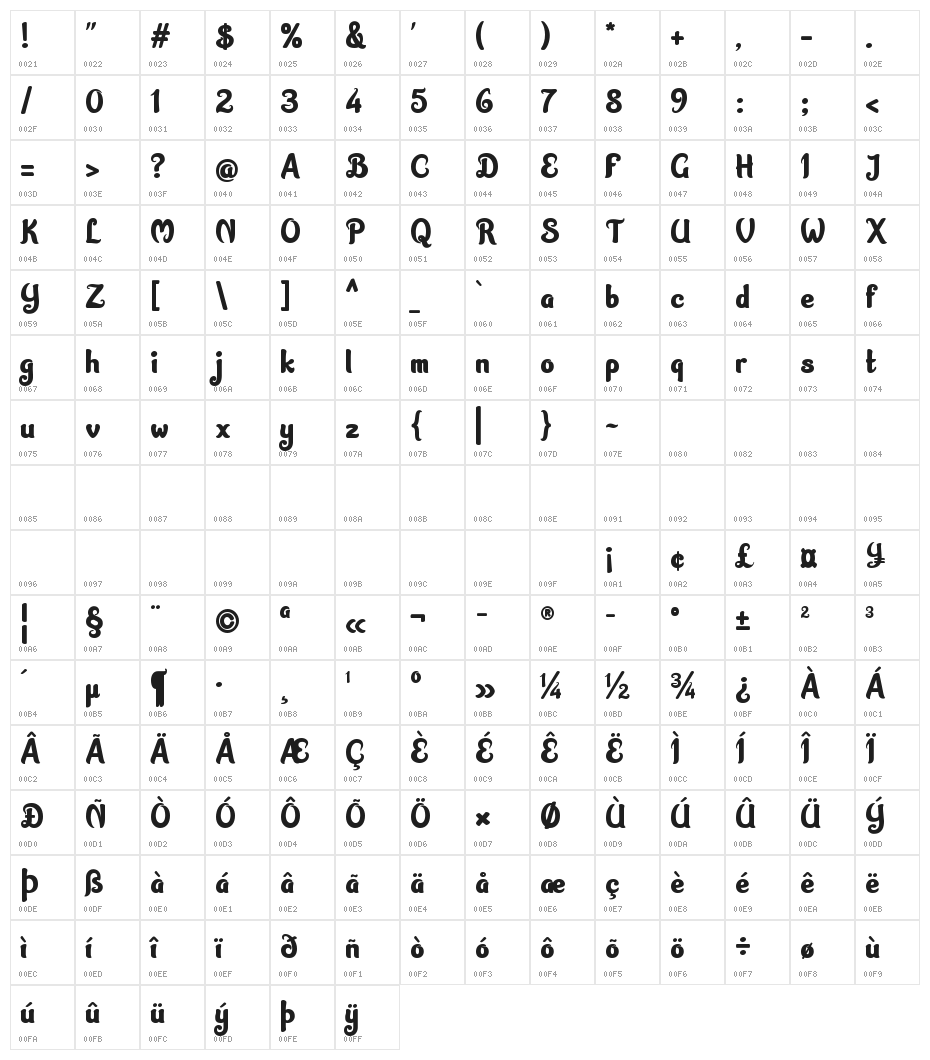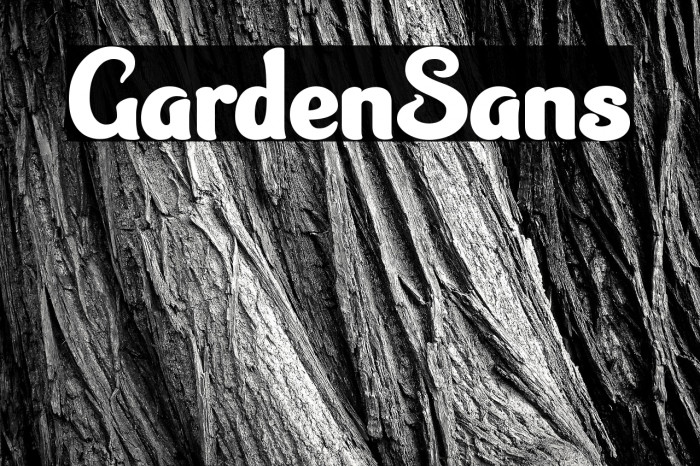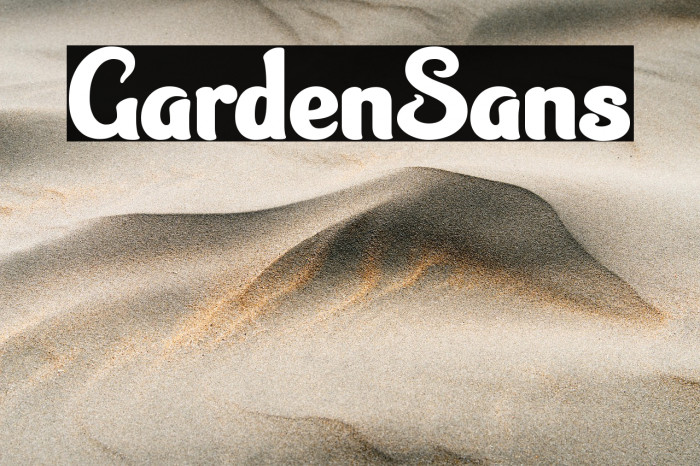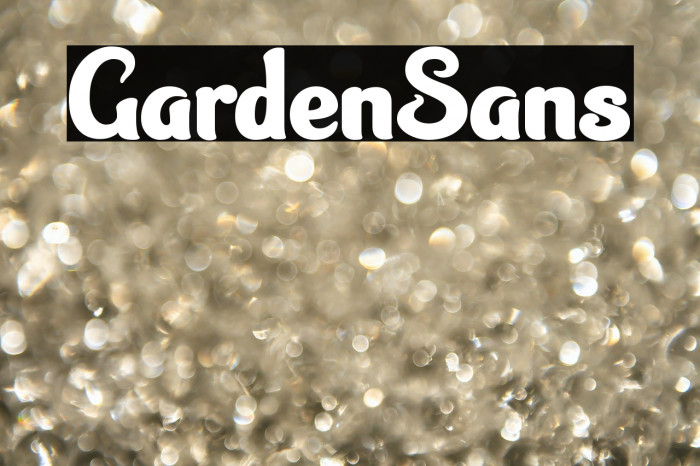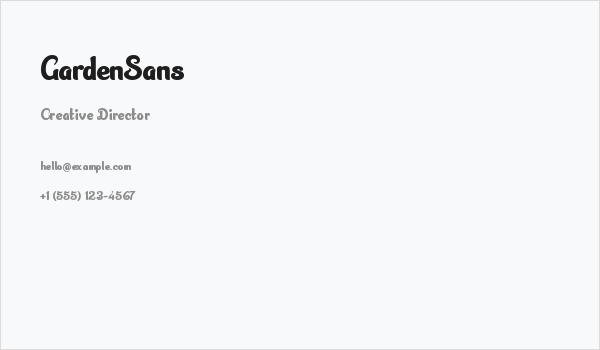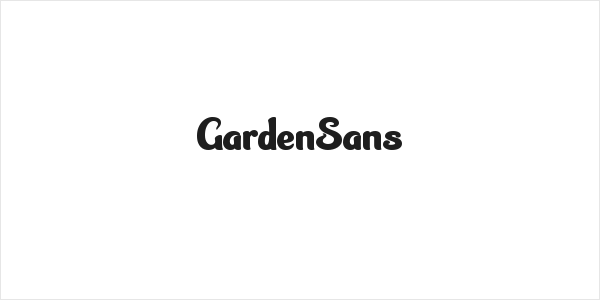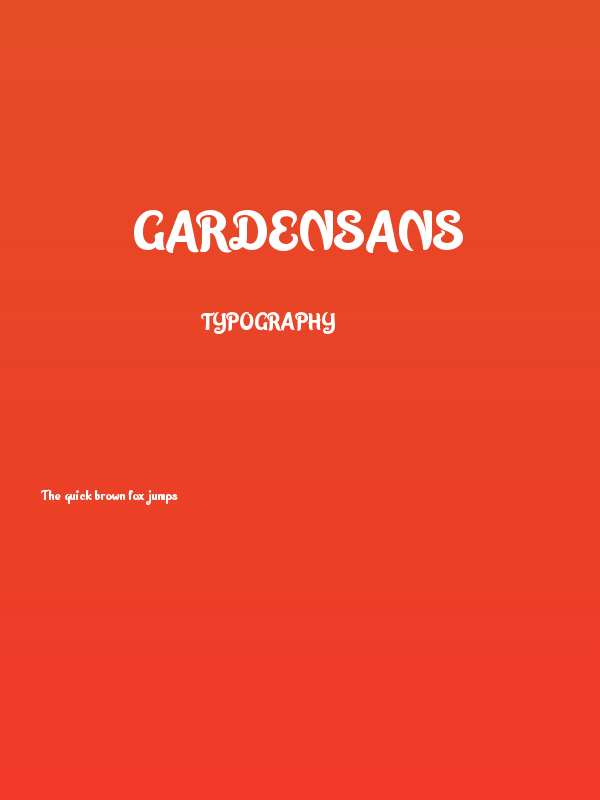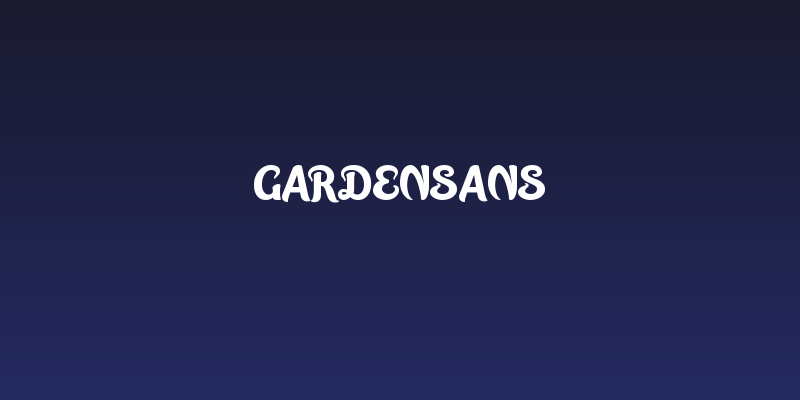
GardenSans Font
GardenSans Description
This playful and decorative font features bold, rounded characters with a whimsical flair. The letters have a consistent stroke width, contributing to a uniform appearance. The uppercase and lowercase letters maintain a cohesive style, with slight variations in the curves and loops that add character. The numerals and special characters are designed to match the overall playful aesthetic, making them suitable for creative and informal applications. The font's unique style is reminiscent of hand-drawn lettering, giving it a friendly and approachable feel.
| Overall Style | Playful, Whimsical, Decorative |